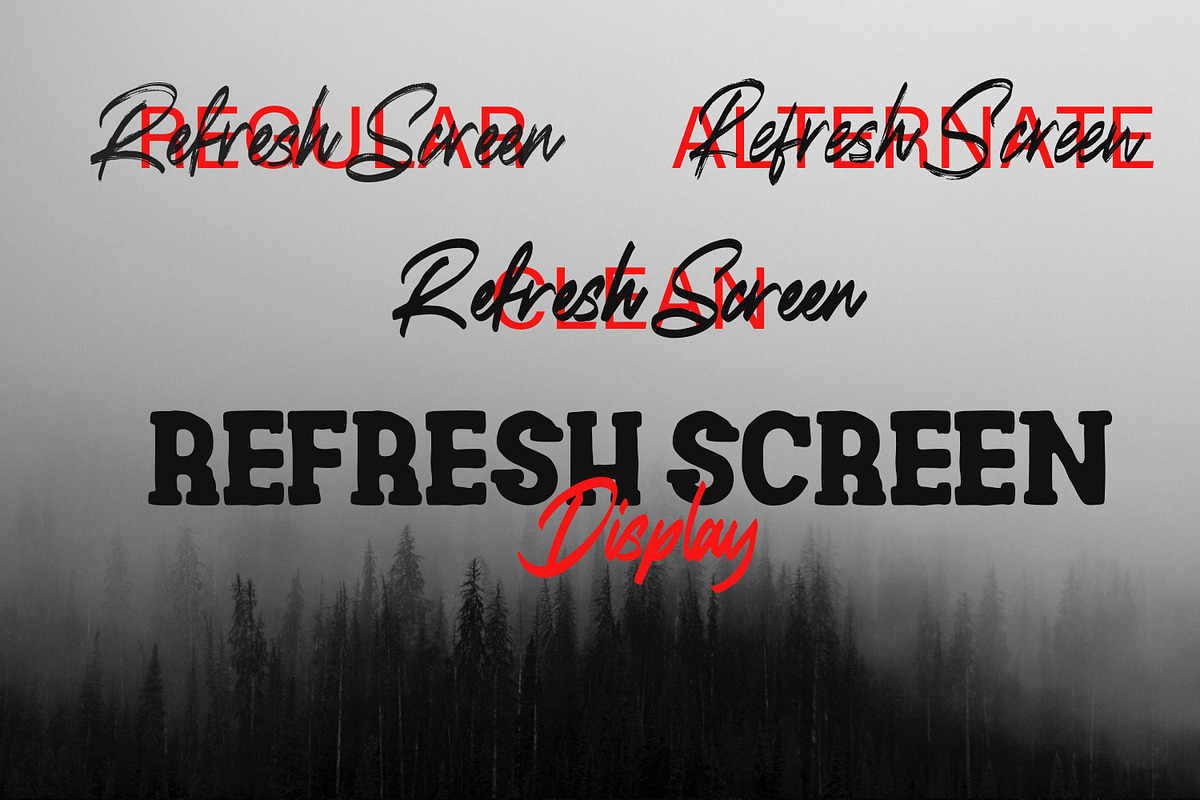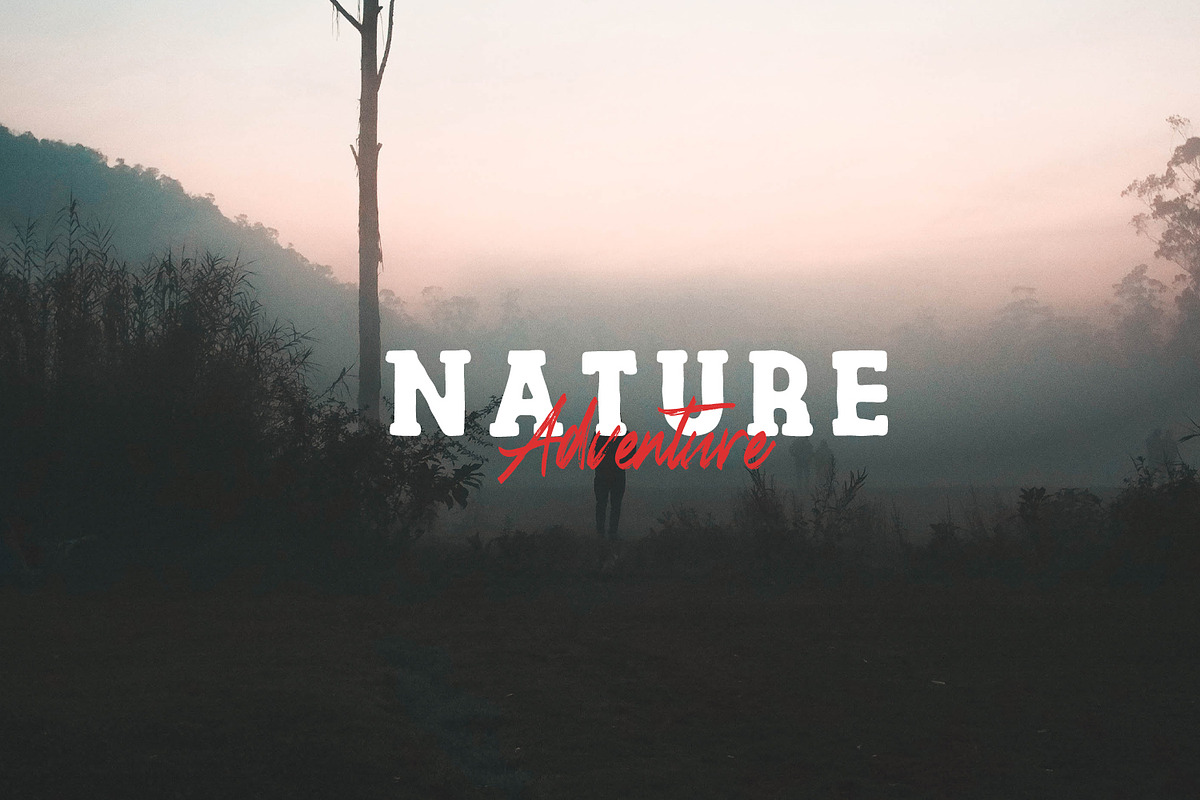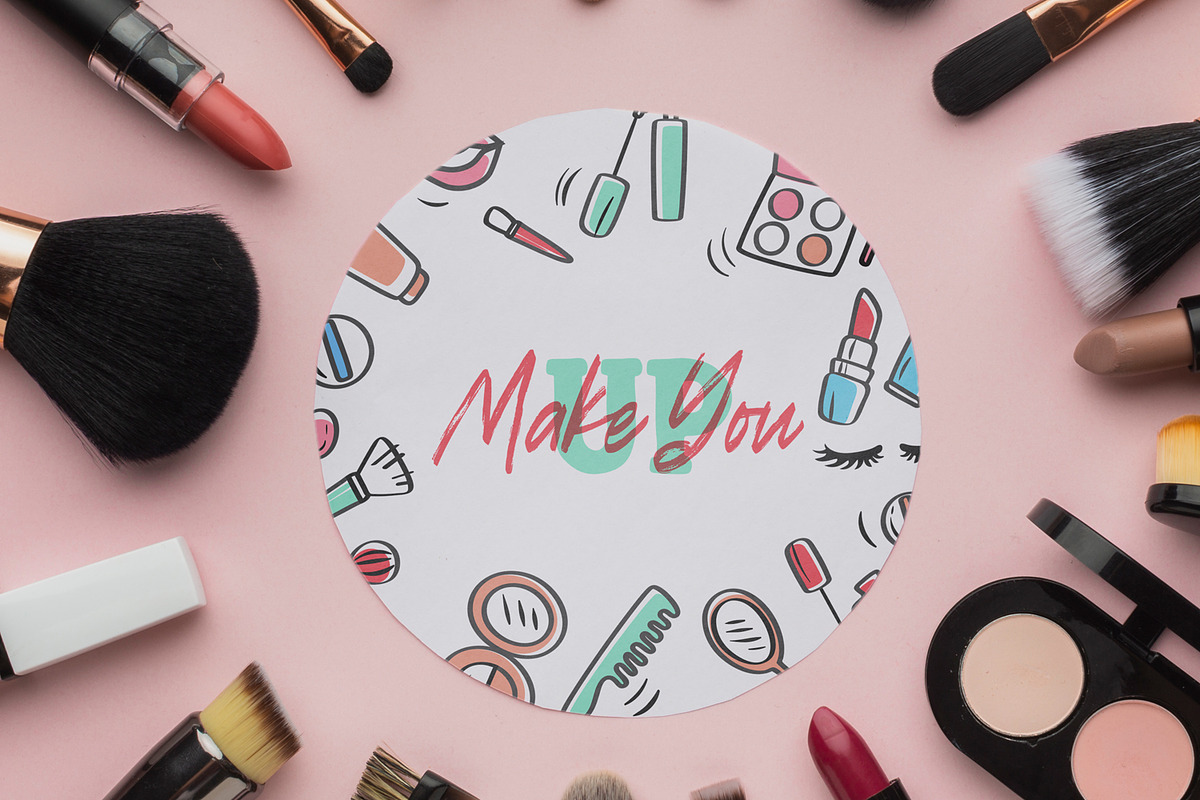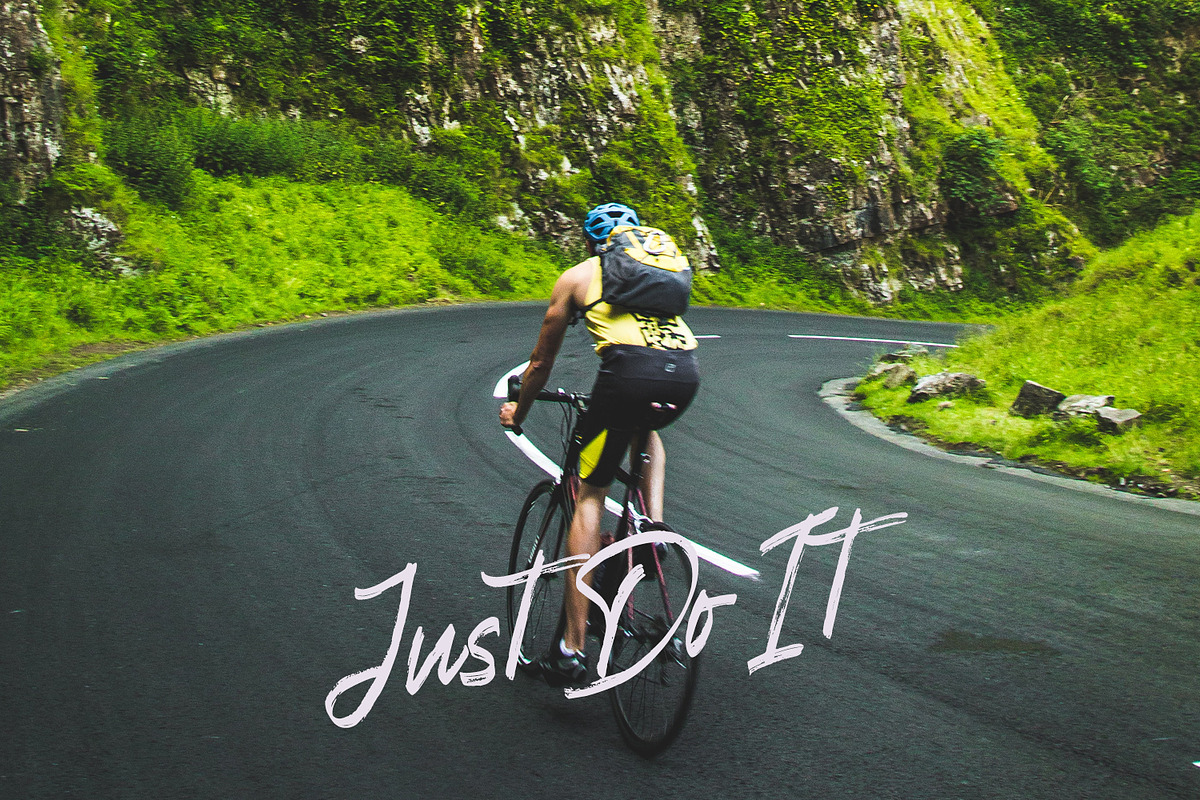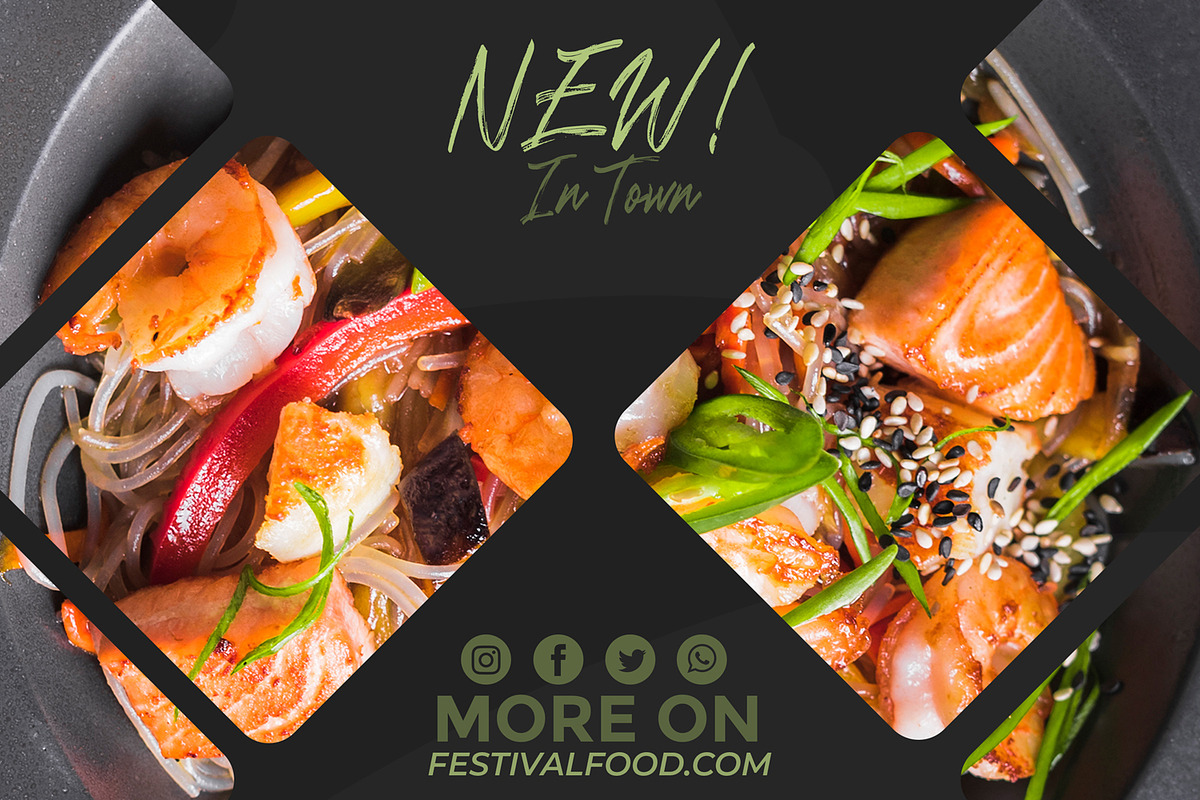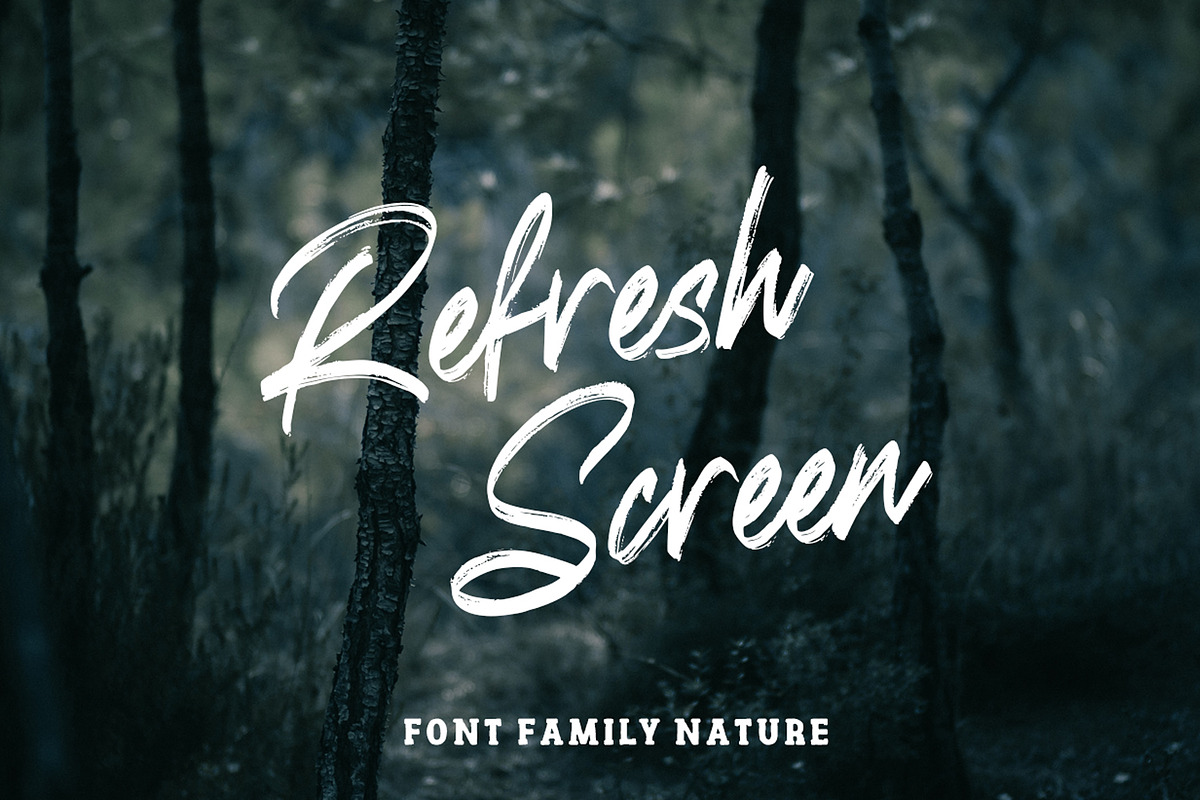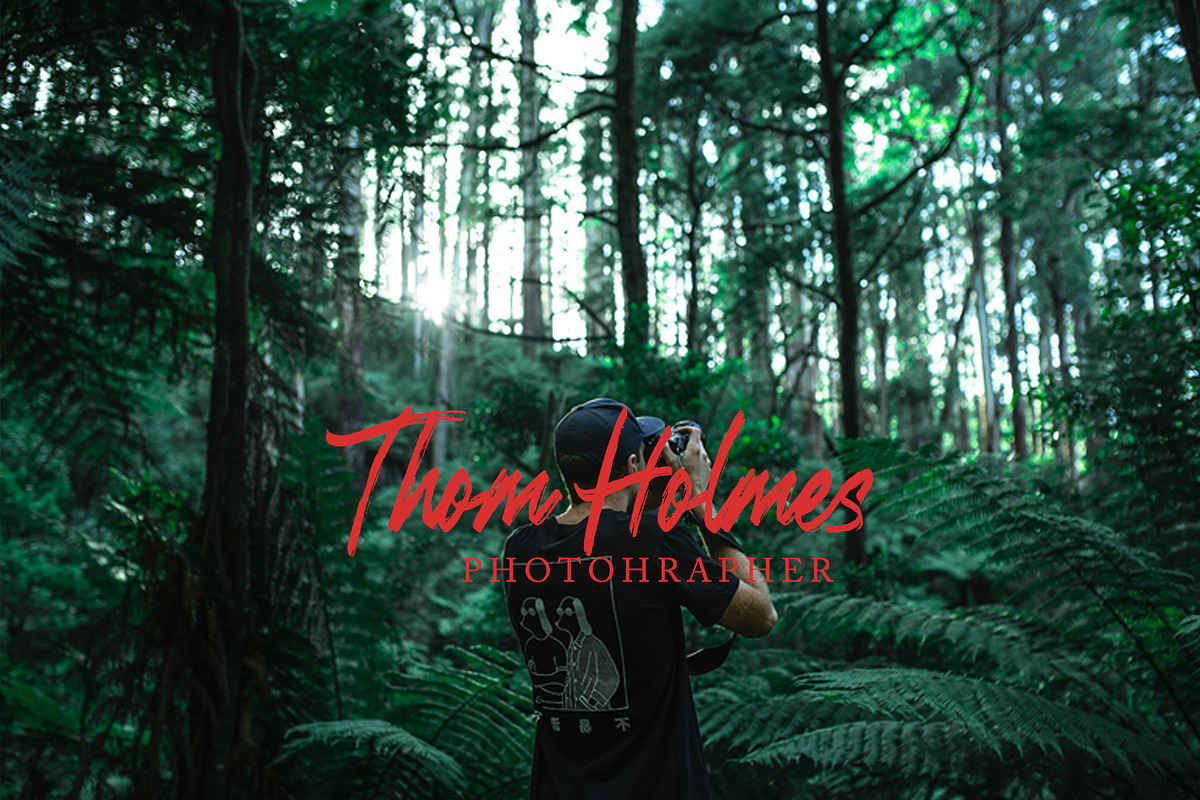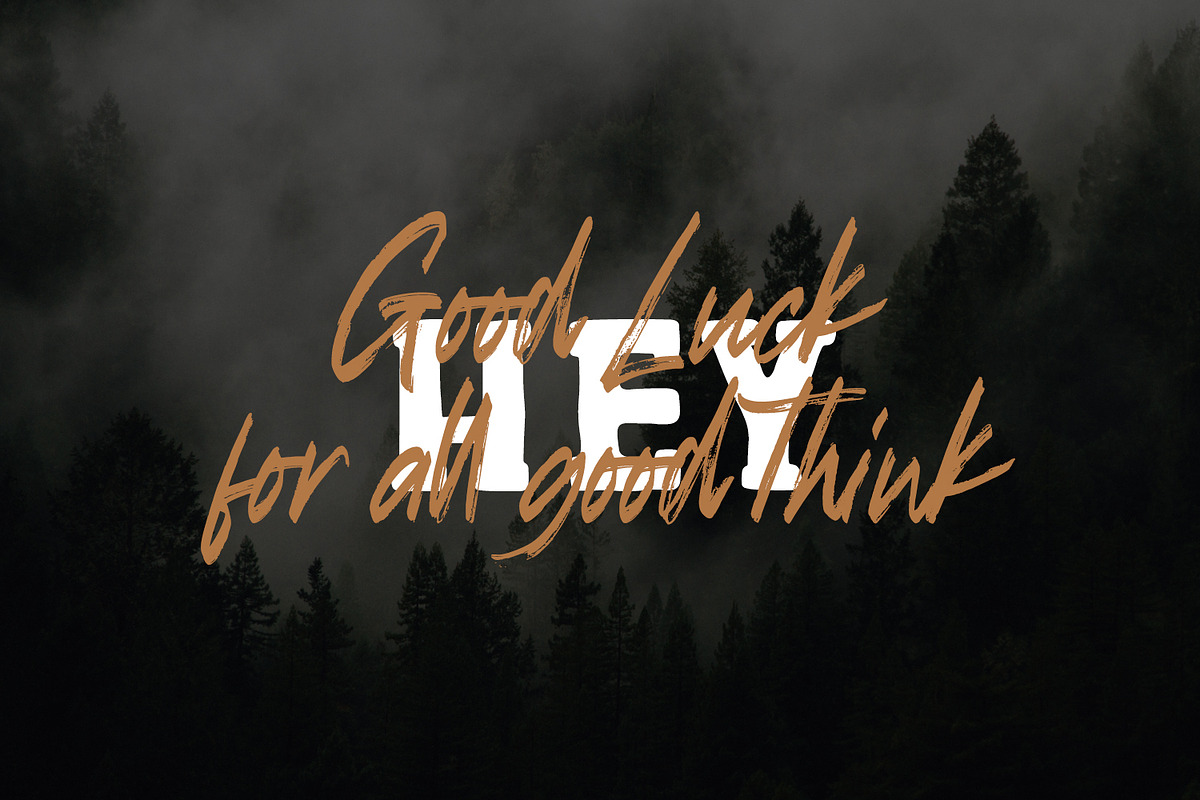
Refresh Screen - Brush Script Font
Refresh Screen Font Duo contains a hand Brush font that pairs well with it's condensed classy pairing. This 2 style font. Give your new brand, wedding invite, quote, etc a fresh hand painted look with realistic texture. The Refresh Screen was created to give a natural yet stylistic look to your next project! Paring the 2 typefaces together works great for wedding invites or fashion branding.
- Refresh Screen Font Duo contains a hand Brush font that pairs well with it's condensed classy pairing.
Refresh Screen - Brush Script Font by Arendxstudio fits naturally into Branding, posters, packaging, typography.